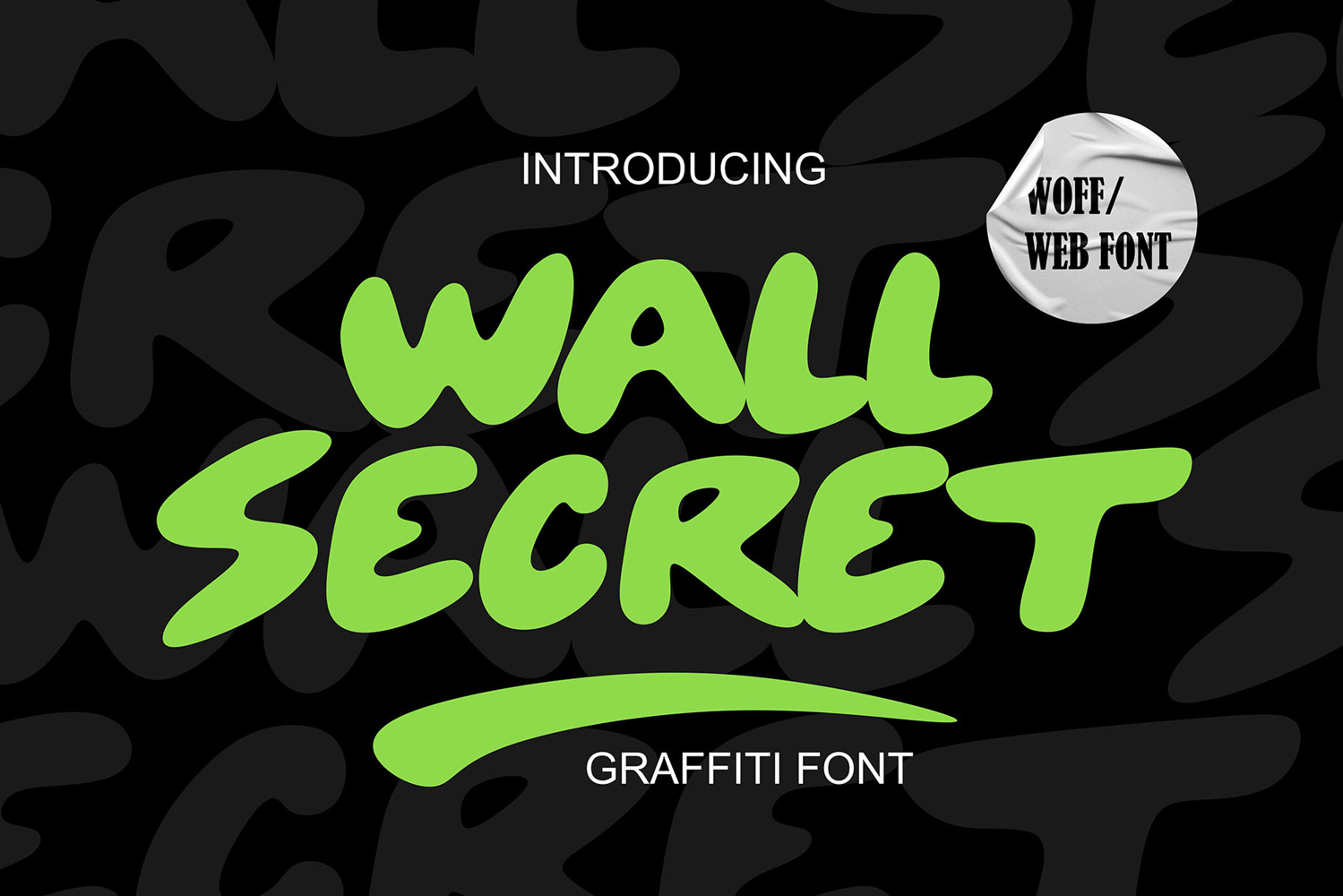
Wall Secret | Bold Smooth Graffiti Webfont WOFF
Wall Secret is a modern graffiti webfont designed for digital projects that need an authentic urban touch. Its bold, rounded shapes give off a vibrant street art vibe while remaining highly readable on all screen sizes. Perfect for online stores, creative portfolios, event websites, and any digital platform that wants to stand out with style.
This webfont version ensures crisp and sharp rendering, making your text visually striking across devices. Bring street culture into the digital world and give your website a unique personality that viewers won’t forget.